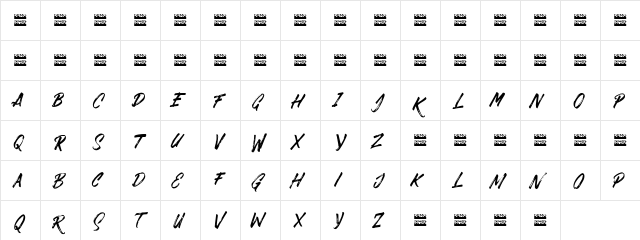
DABRUSH Regular
Design Context for DABRUSH Typeface
DABRUSH brings a calligraphic fluidity to the page — its connecting strokes and expressive curves give it an unmistakably human quality.
Font Pairing: Combine DABRUSH with a simple geometric sans for maximum contrast — the tension between flowing curves and clean structure is a classic typographic pairing.
Pro Tip: Use DABRUSH for short runs of text — names, titles, or taglines. Extended body copy in script faces tires the eye quickly.